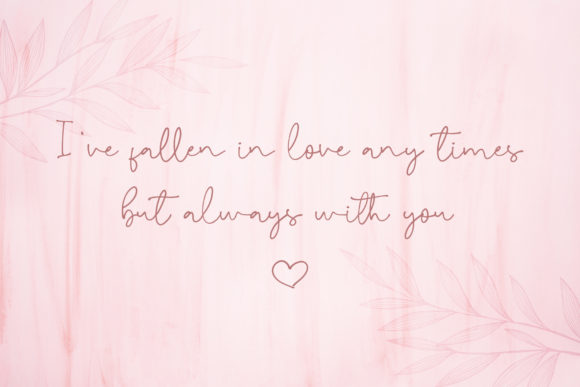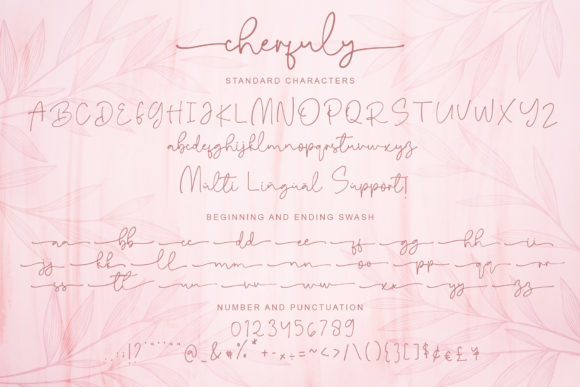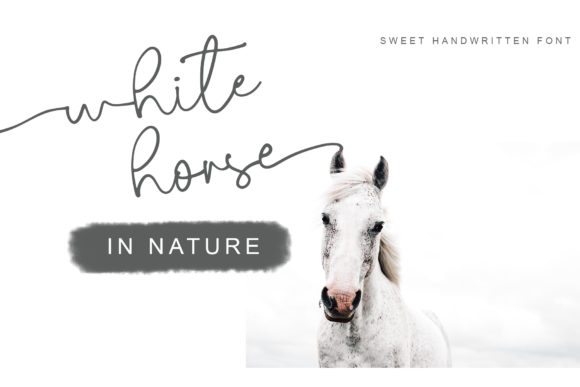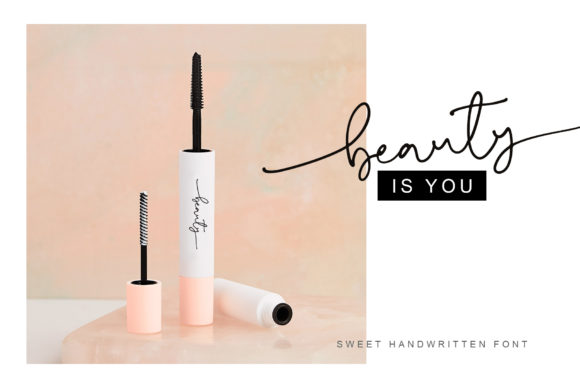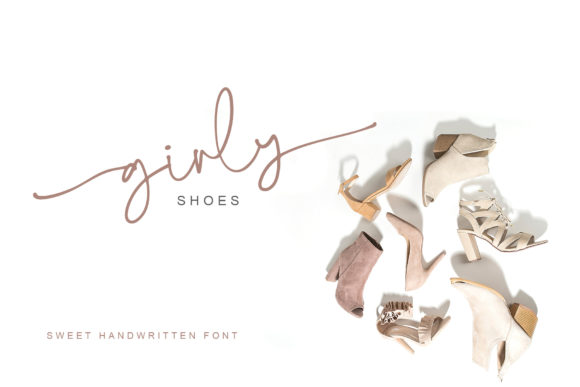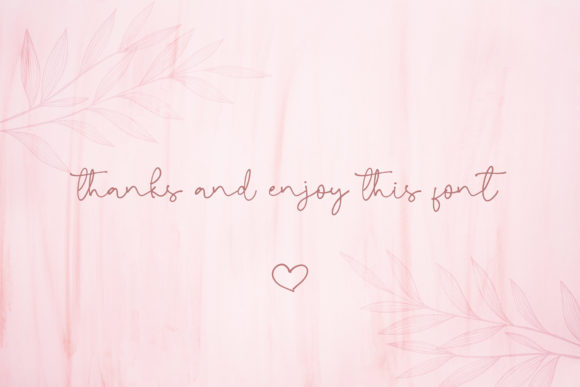
Cherfuly Font: Elevate Your Designs with Elegance and Sophistication
In the world of typography, a well-crafted font can make all the difference in elevating your designs from ordinary to extraordinary. If you’re a designer, crafter, or DIY enthusiast looking for a touch of class and sophistication, look no further than the Cherfuly Font. This stunning handwritten script font is designed to add a dash of elegance to your projects, and its impressive feature set makes it an indispensable tool in your creative arsenal.
What is Cherfuly Font?
Cherfuly is a beautifully crafted handwritten script font that exudes a sense of refinement and luxury. Its classy style makes it perfect for a wide range of applications, from wedding invitations and branding materials to packaging and digital media. With Cherfuly, you can add a personal touch to your designs and create a lasting impression on your audience.
One of the standout features of Cherfuly Font is its PUA (Private Use Area) encoding. This means that you can easily access all the amazing glyphs and swashes without any hassle. PUA encoding allows you to unlock the full potential of the font, giving you the creative freedom to experiment with different styles and combinations. Whether you’re a seasoned designer or a crafting novice, Cherfuly’s intuitive encoding makes it easy to get started and achieve professional-looking results.
A Wealth of Special Features
Cherfuly Font is more than just a pretty face – it’s packed with a wealth of special features that will take your designs to the next level. Some of the key features include:
• Alternate Glyphs: Switch between different glyph variations to add visual interest and create unique combinations.
• Ligatures: Use ligatures to connect letters and create a flowing, handwritten look that’s perfect for titles and headings.
• Swashes: Add a touch of drama and flair with swashes that can be used to embellish your text and create a sense of movement.
Cherfuly Font is an ideal choice for designers and crafters who want to add a touch of elegance and sophistication to their projects. Whether you’re working on:
• Wedding Invitations: Create beautiful, bespoke invitations that set the tone for a special day.
• Branding Materials: Develop a cohesive brand identity with Cherfuly’s classy, refined style.
• Packaging: Stand out on store shelves with eye-catching packaging that showcases your product in style.
• Digital Media: Use Cherfuly to create stunning social media graphics, blog headers, and more.
Get Creative with Cherfuly Font
In conclusion, Cherfuly Font is a must-have for designers and crafters who want to add a touch of class and sophistication to their projects. With its PUA encoding, alternate glyphs, ligatures, and swashes, this stunning handwritten script font is the perfect choice for anyone looking to elevate their designs and create a lasting impression. So why not give Cherfuly a try and see the difference it can make in your work?